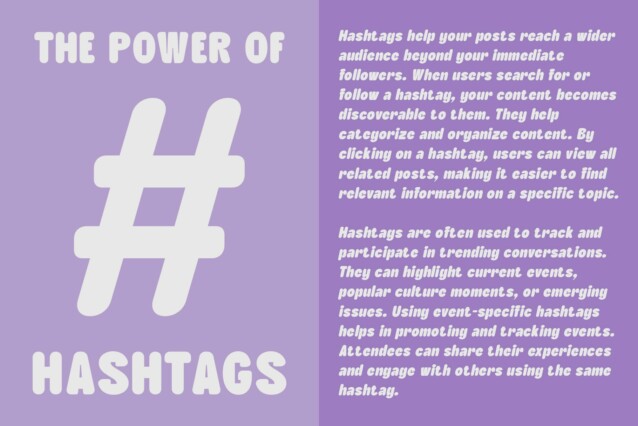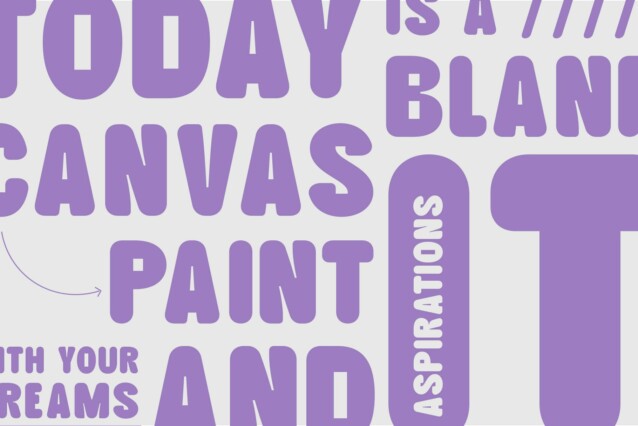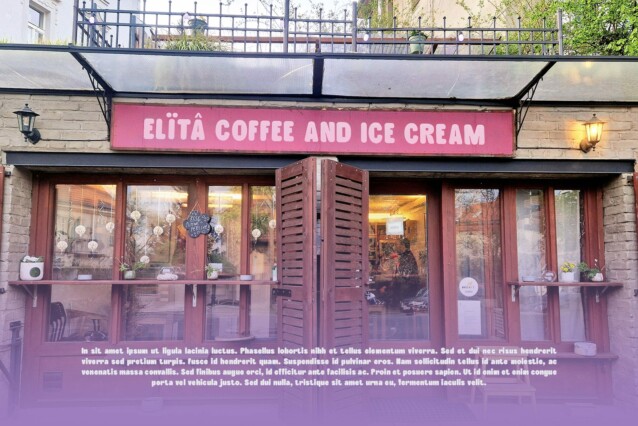
Gefarin Rounded Font
Gefarin Rounded Font is a bold sans-serif font that pairs thick, sturdy letterforms with playful, rounded edges. This unique combination creates a font that is not only eye-catching but also full of personality. Its vibrant and energetic design ensures that it stands out in any context, making it perfect for graphics and branding that demand attention.